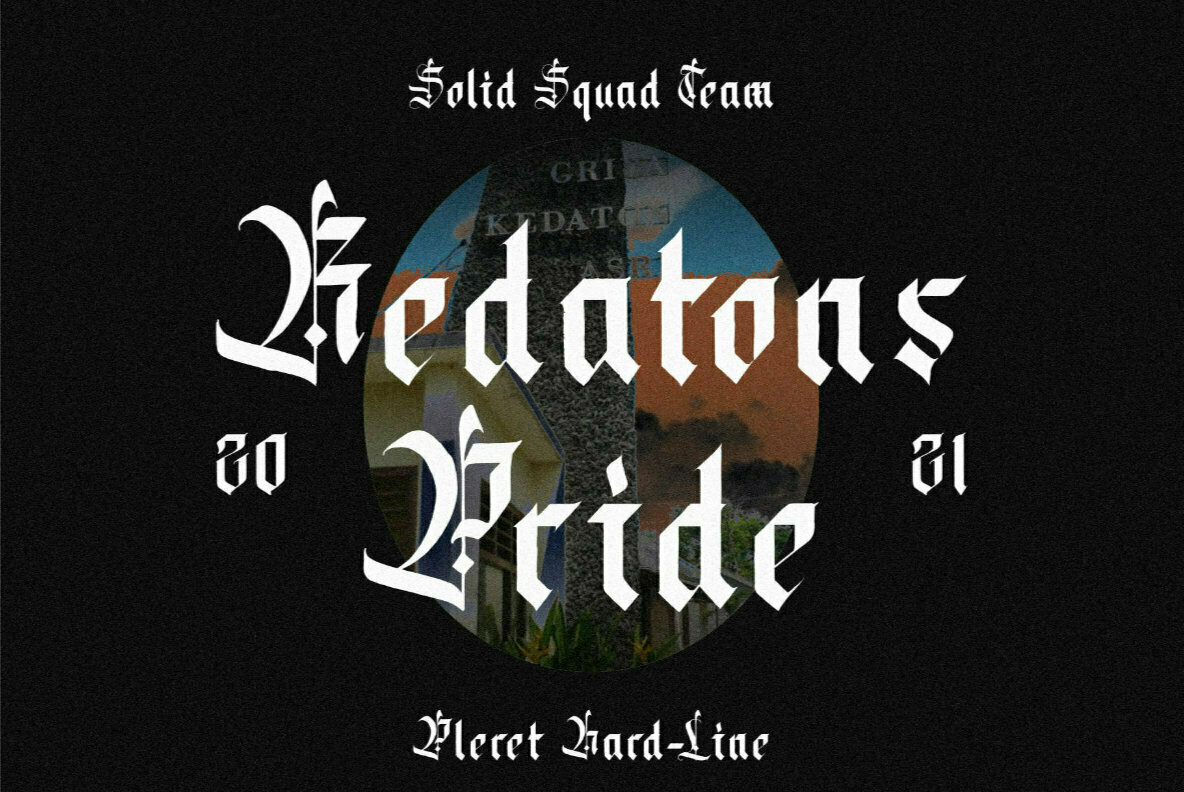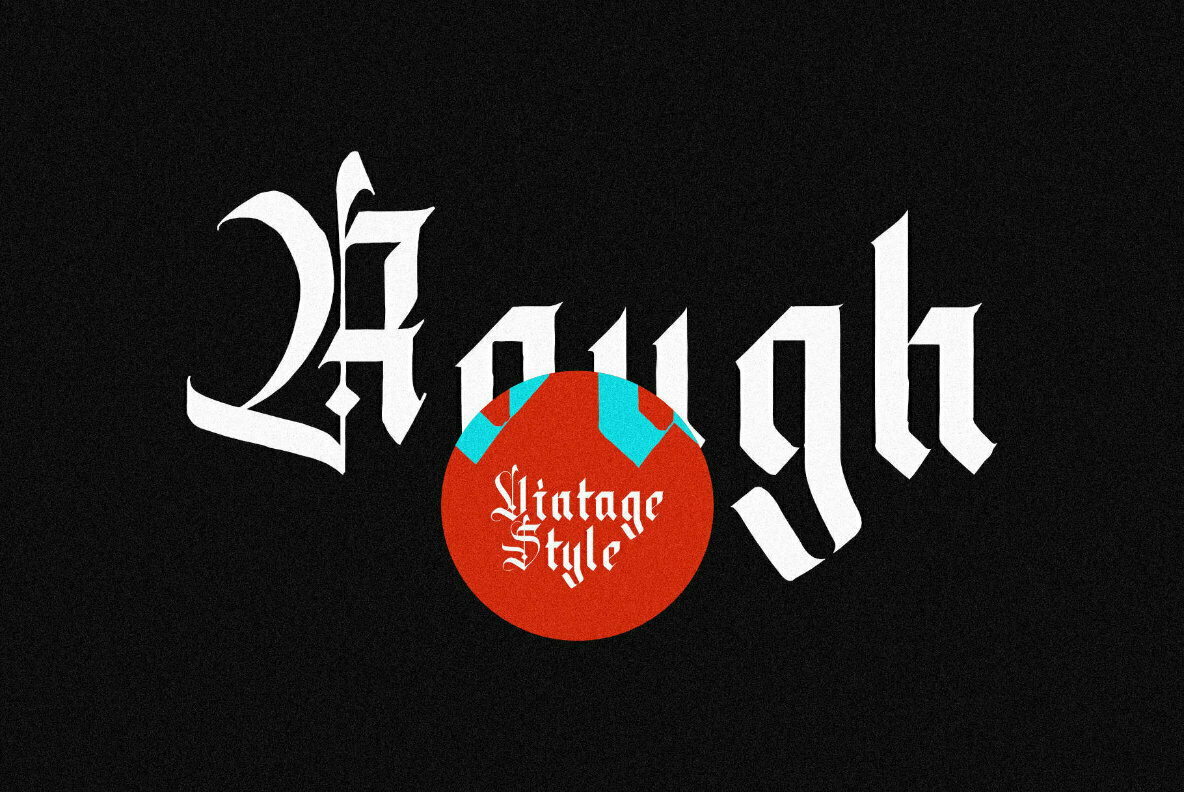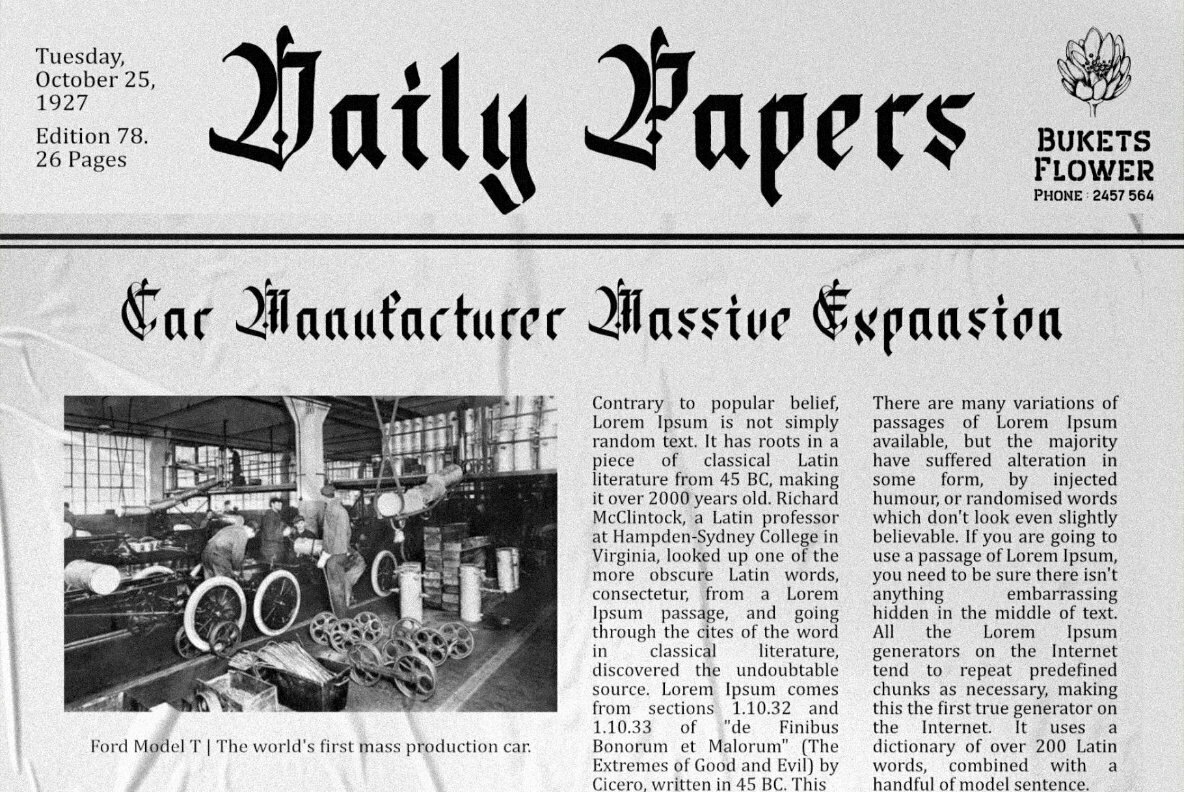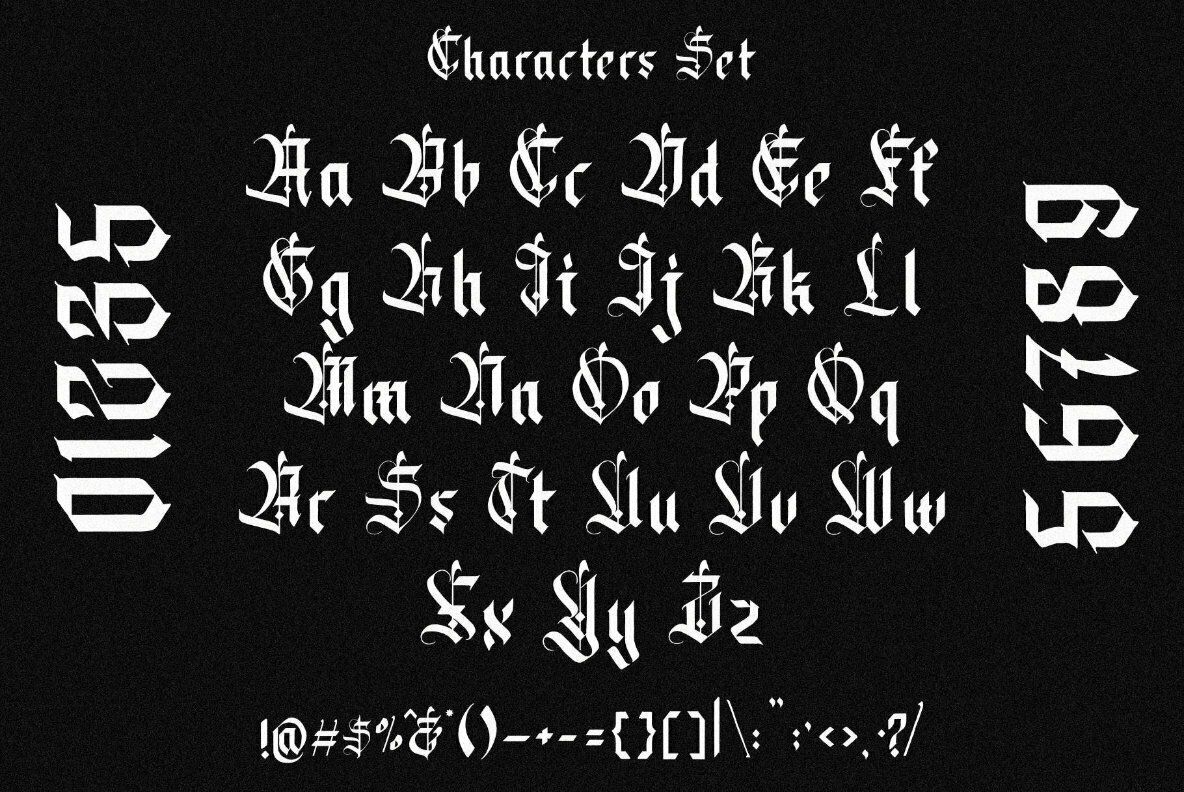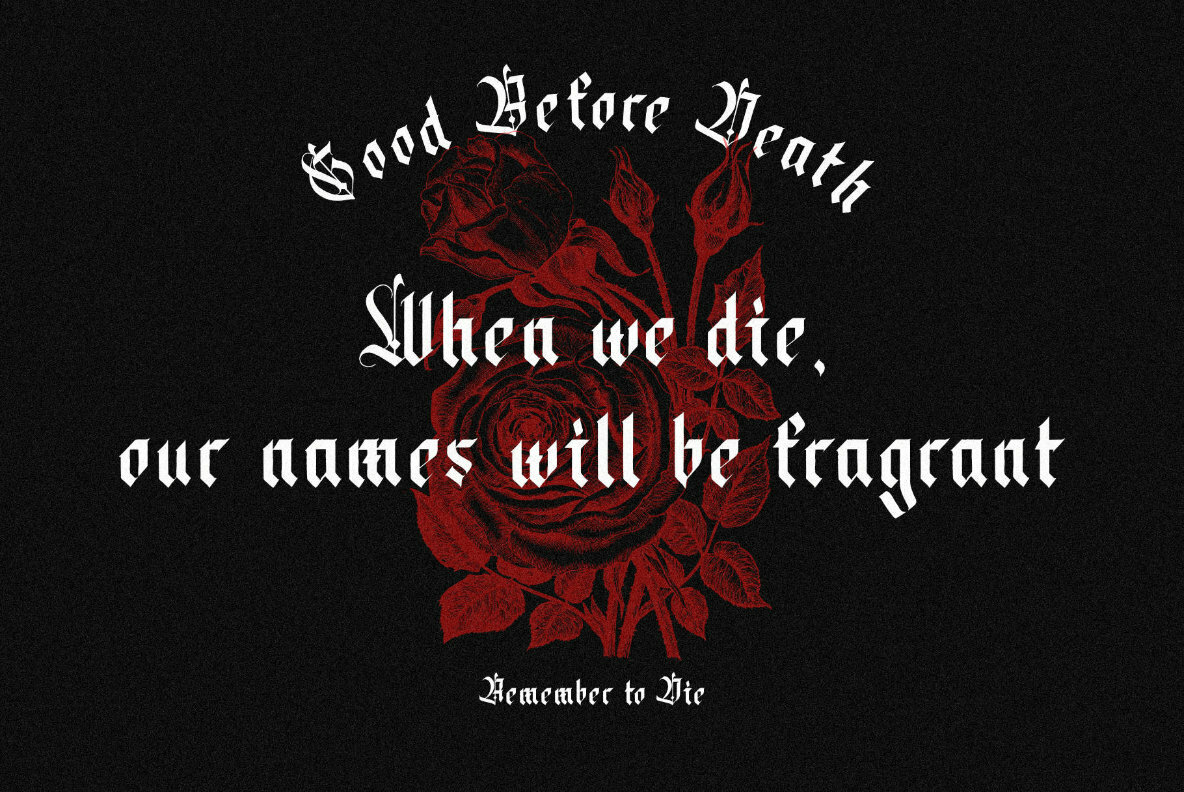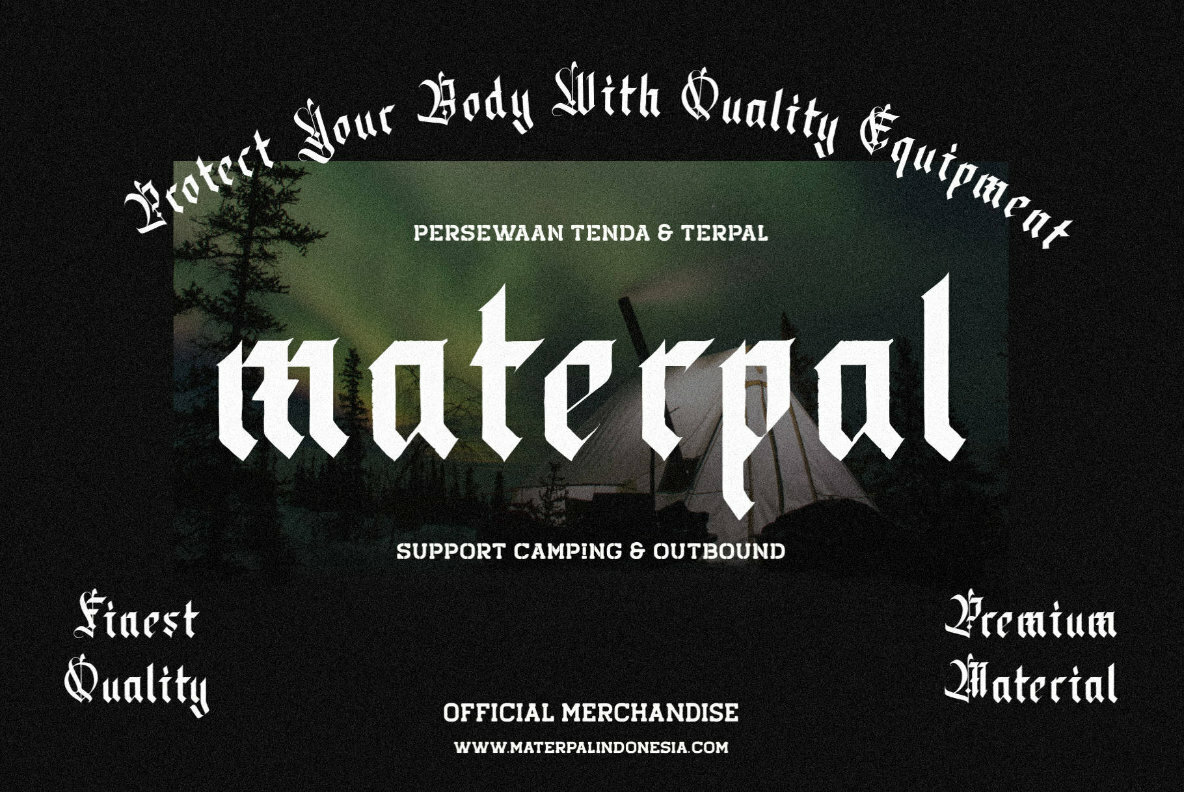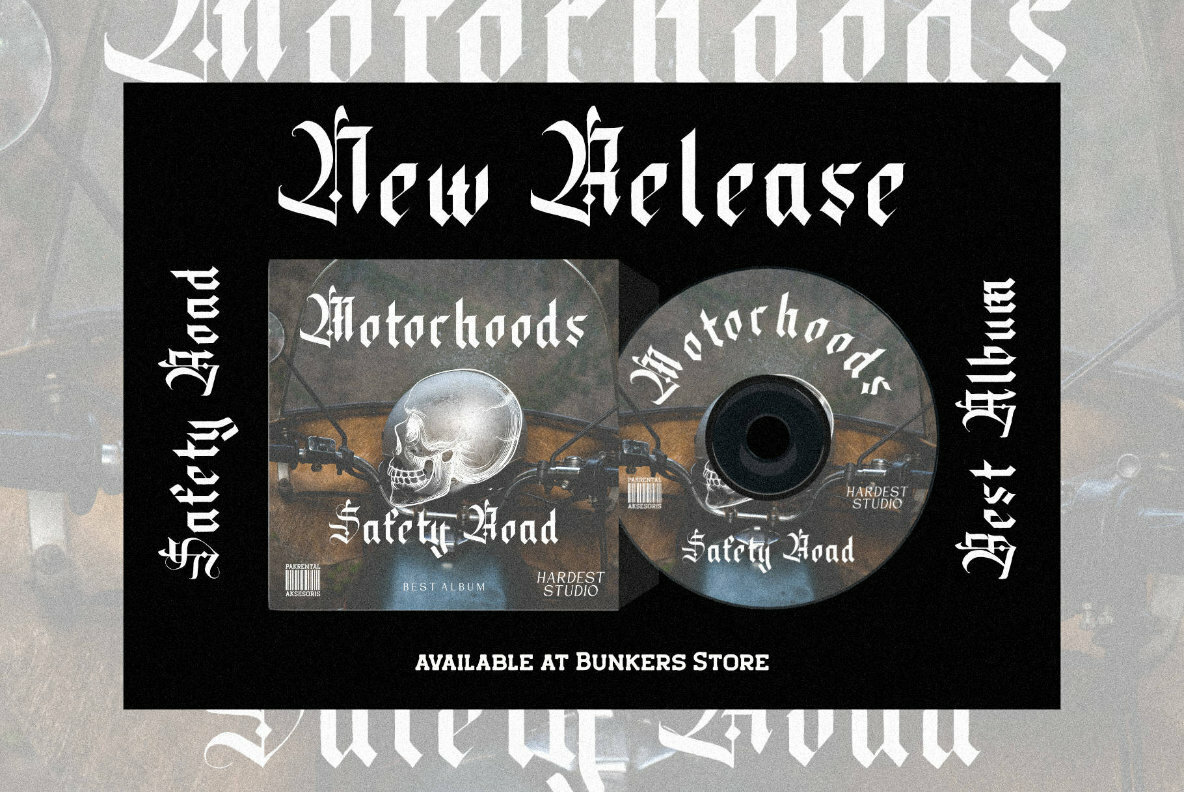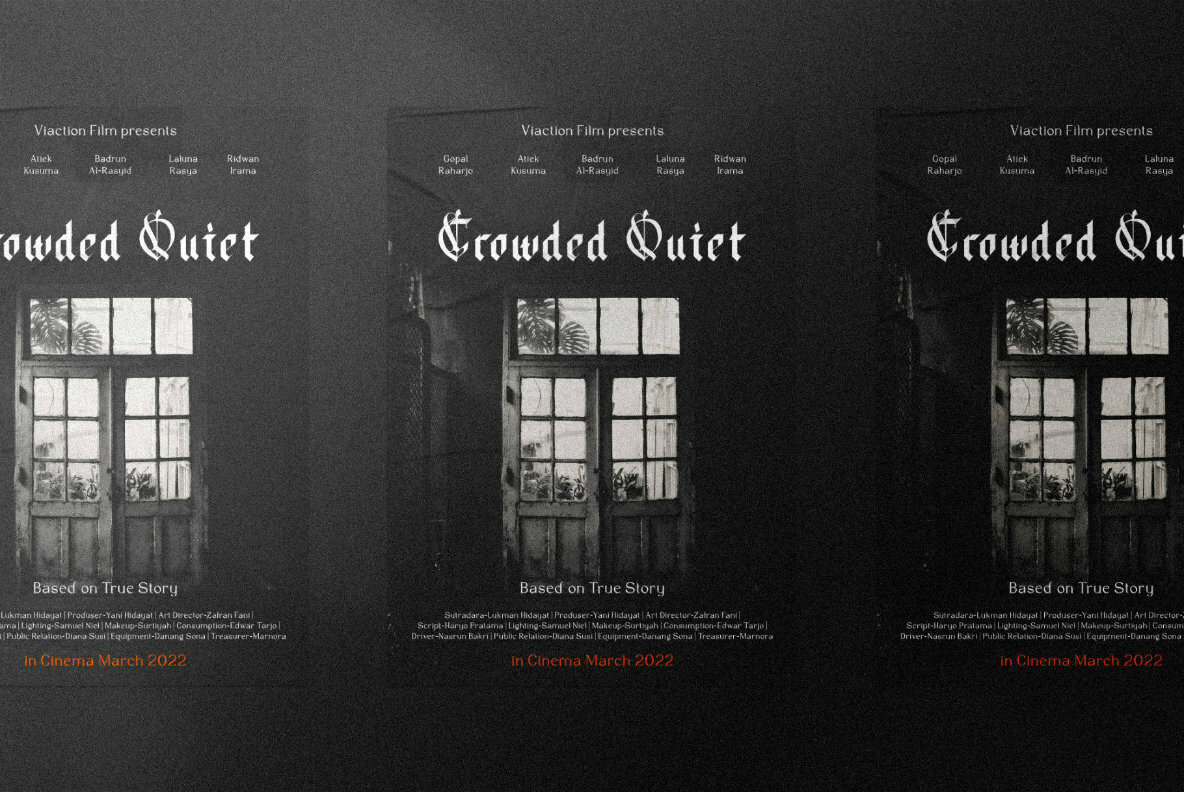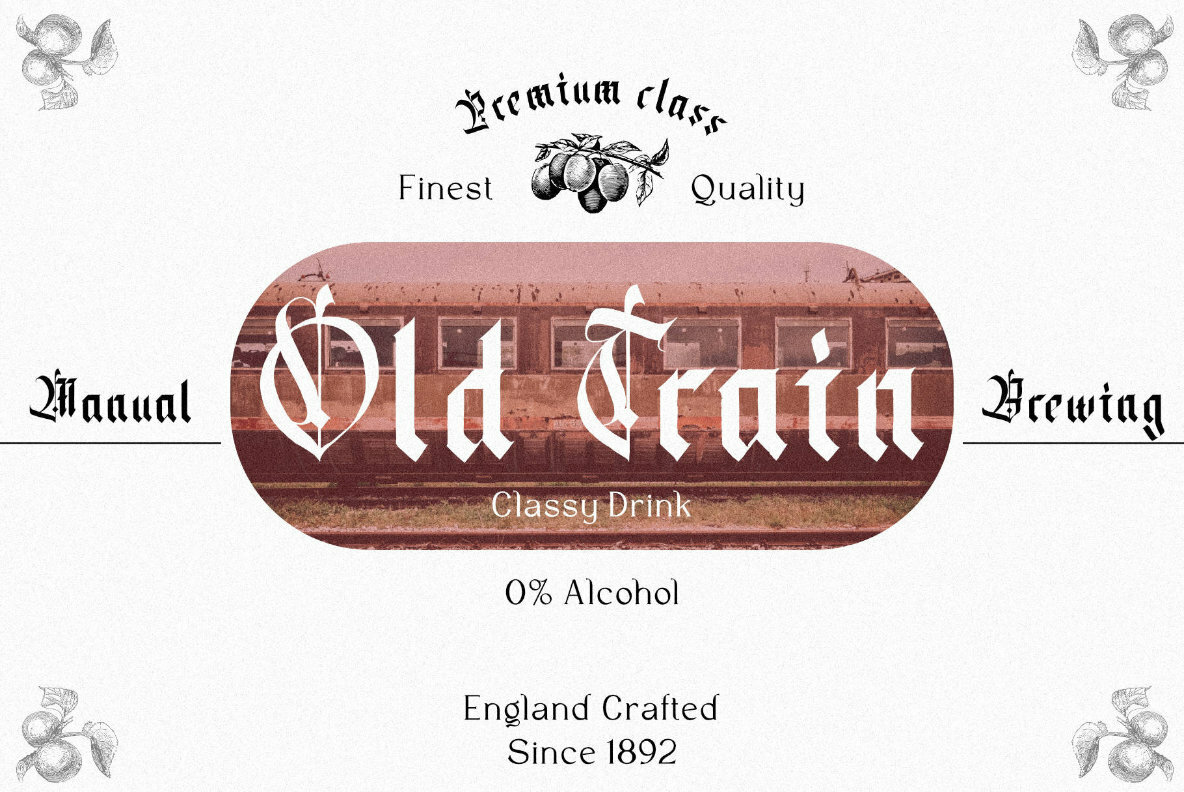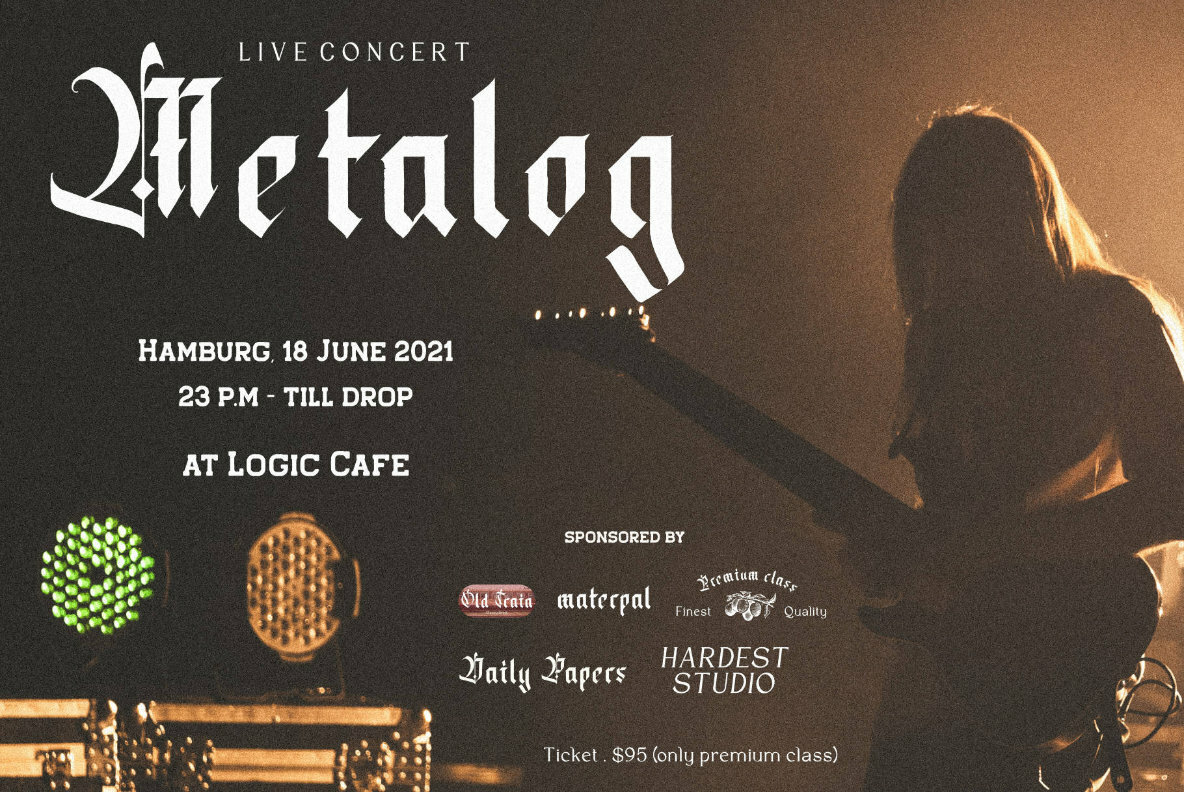
Datons Font
Datons
Datons embodies a unique blend of vintage allure with a classic Blackletter typographic style, making it an excellent choice for headlines and brand names. Its distinctive design meets the needs of those seeking a spooky or vintage-themed aesthetic, effortlessly enhancing any design project that requires a touch of antiquity. Features:Datons: Vintage-Inspired Blackletter Font